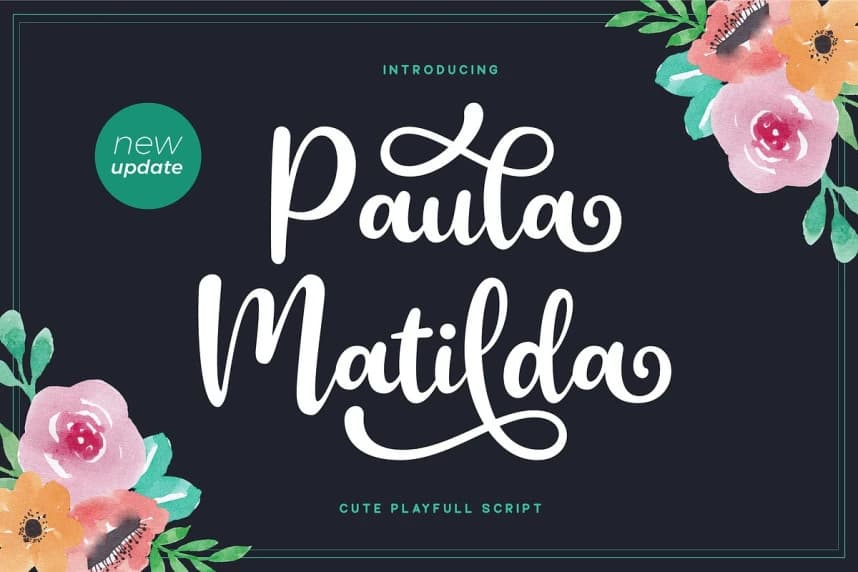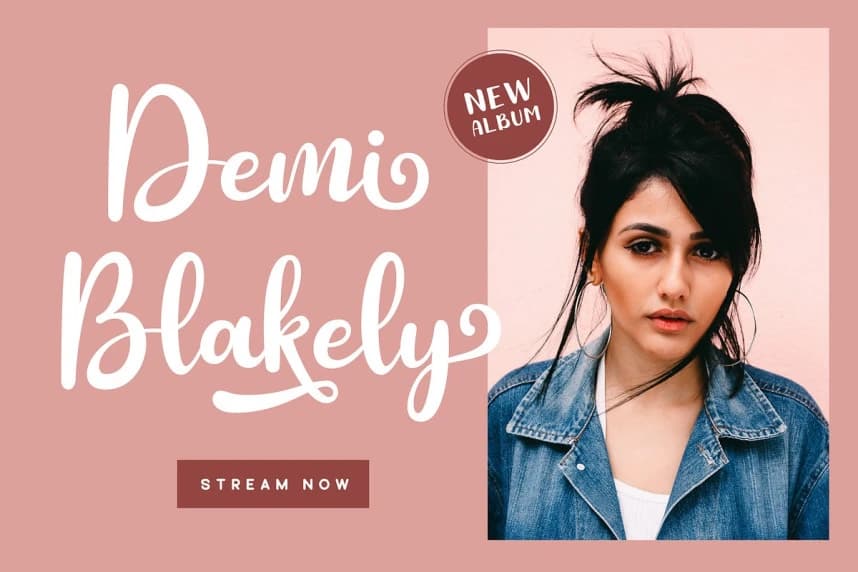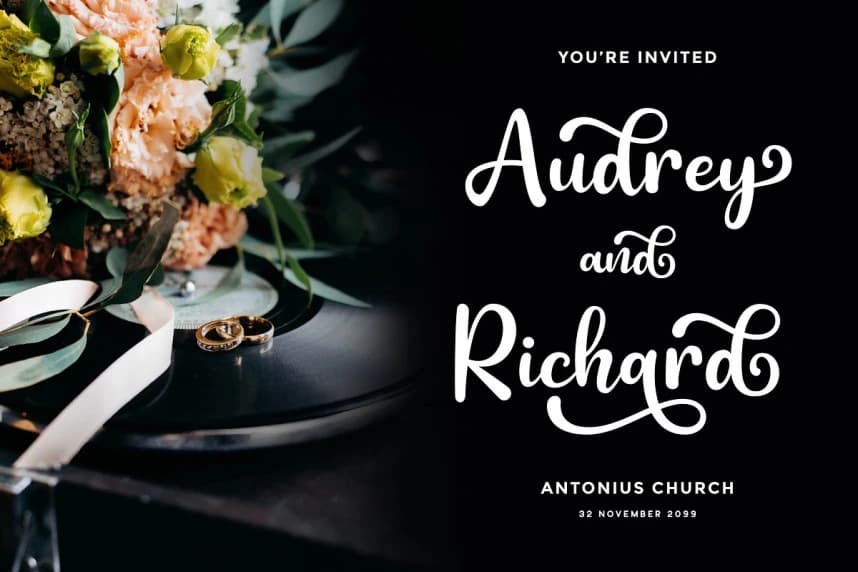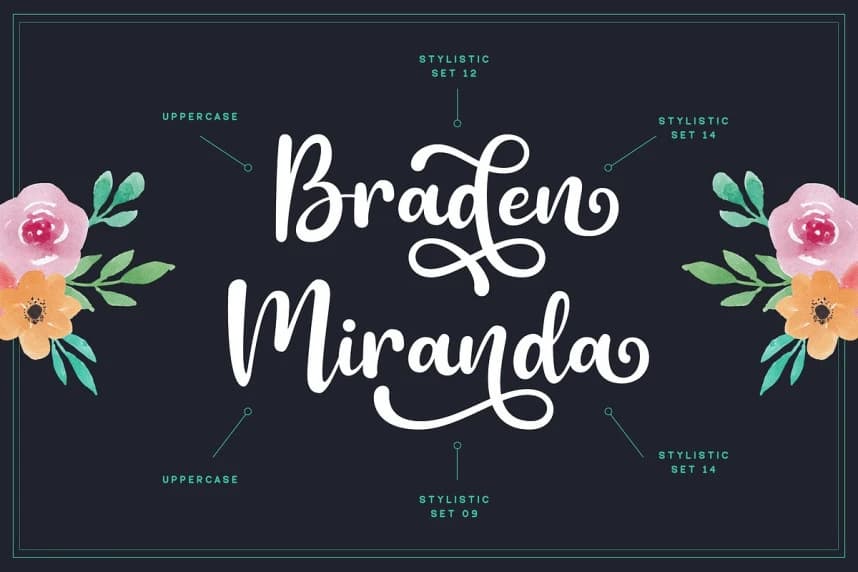
Paula Matilda Font
Paula Matilda Font is an elegant and flowing handwritten font. It features a varying baseline, smooth lines, gorgeous glyphs and stunning alternates. It maintains its classy calligraphic influences while feeling contemporary and fresh.